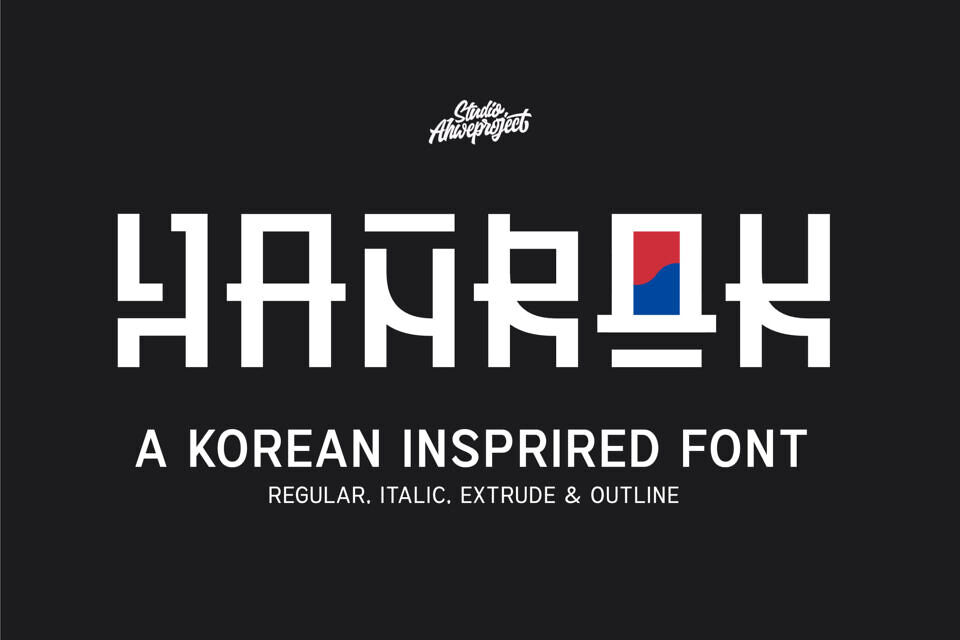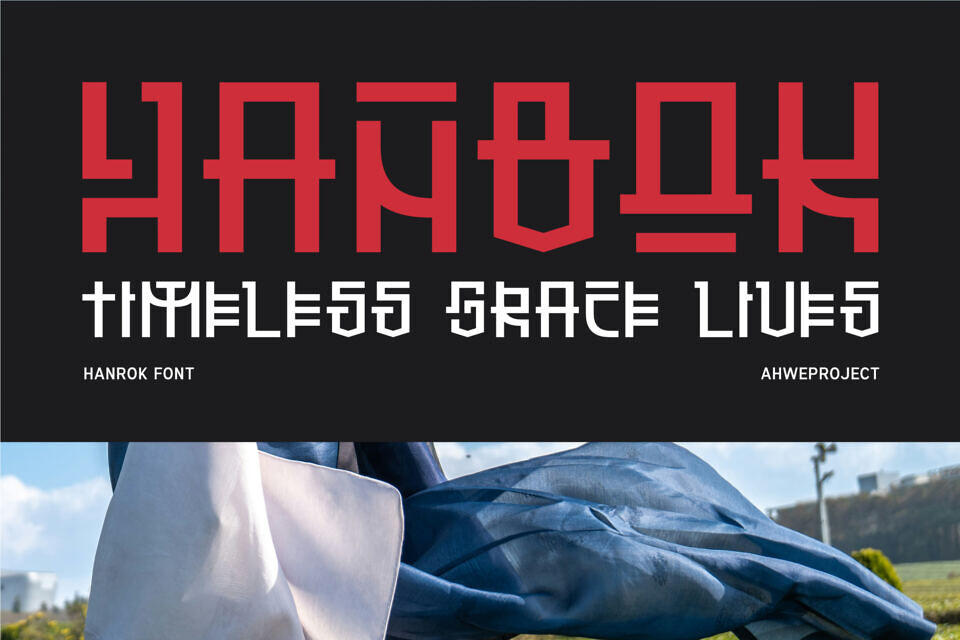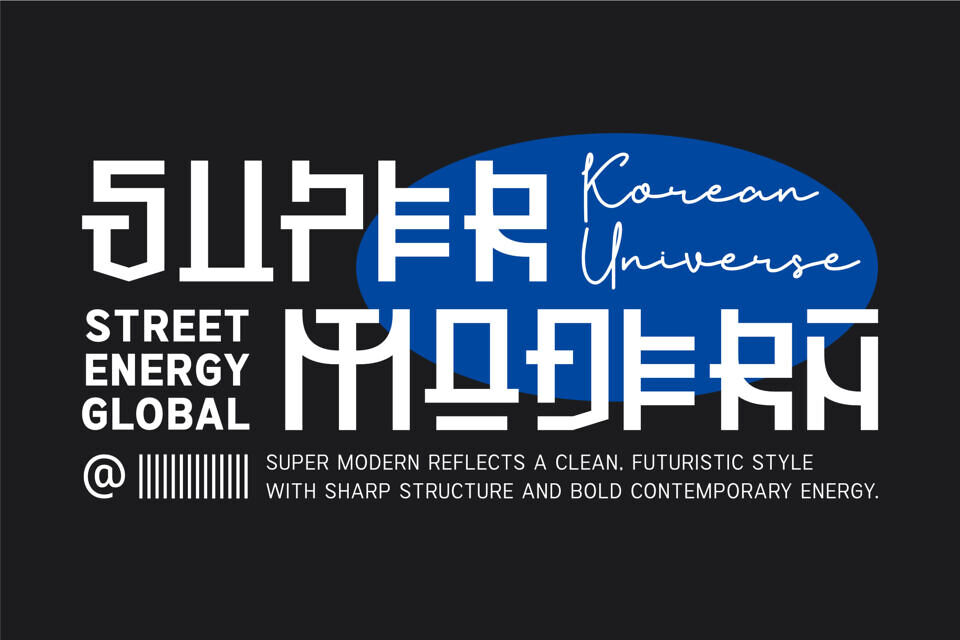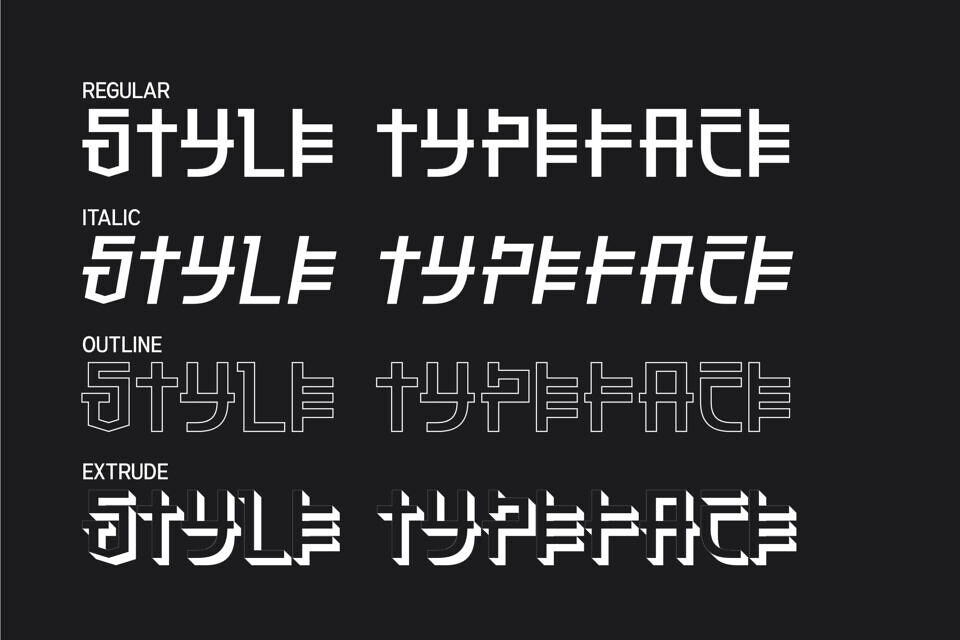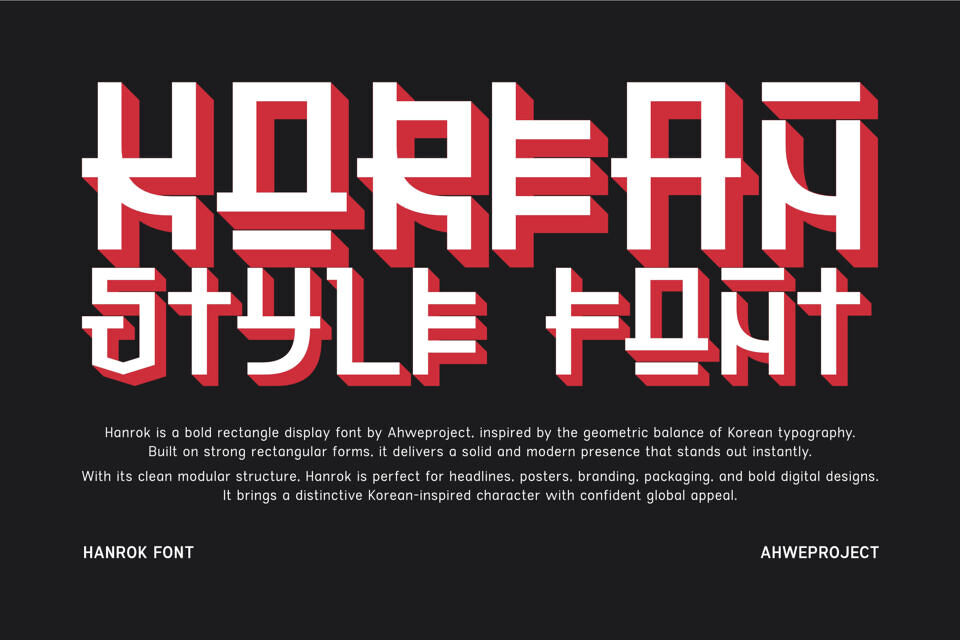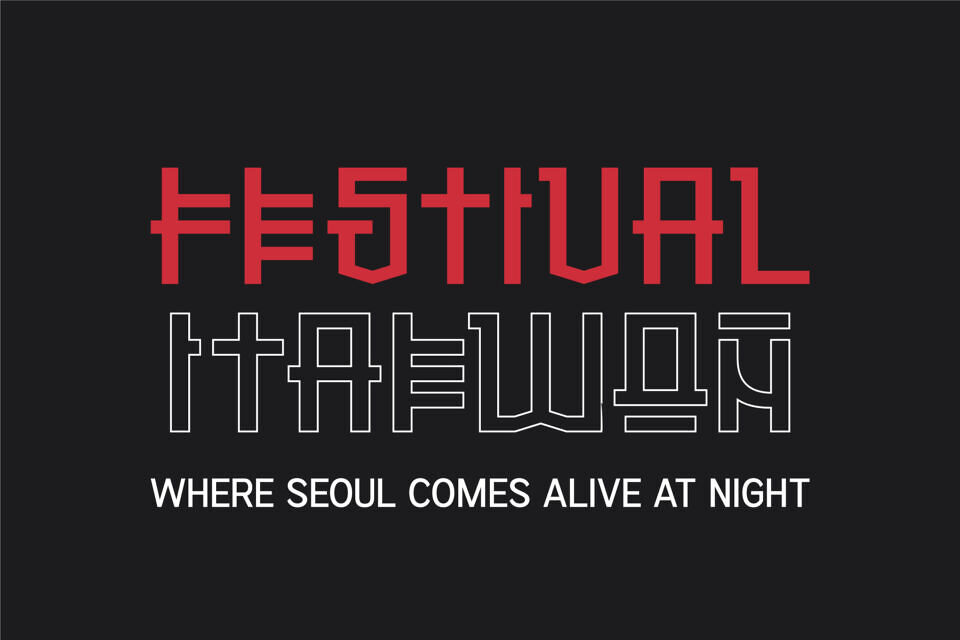
Hanrok Font
Hanrok is a bold display font inspired by the visual structure and modern aesthetic of Korean typography. Combining strong geometric lines with subtle Hangul-inspired details, this typeface delivers a unique, clean, and powerful look for a wide range of design projects.
Designed to command attention, Hanrok works perfectly for headlines, posters, branding, logos, product packaging, K-pop themed designs, Asian cultural visuals, streetwear graphics, and impactful social media content. Its solid, symmetrical letterforms create a distinctive rhythm that instantly strengthens visual identity.